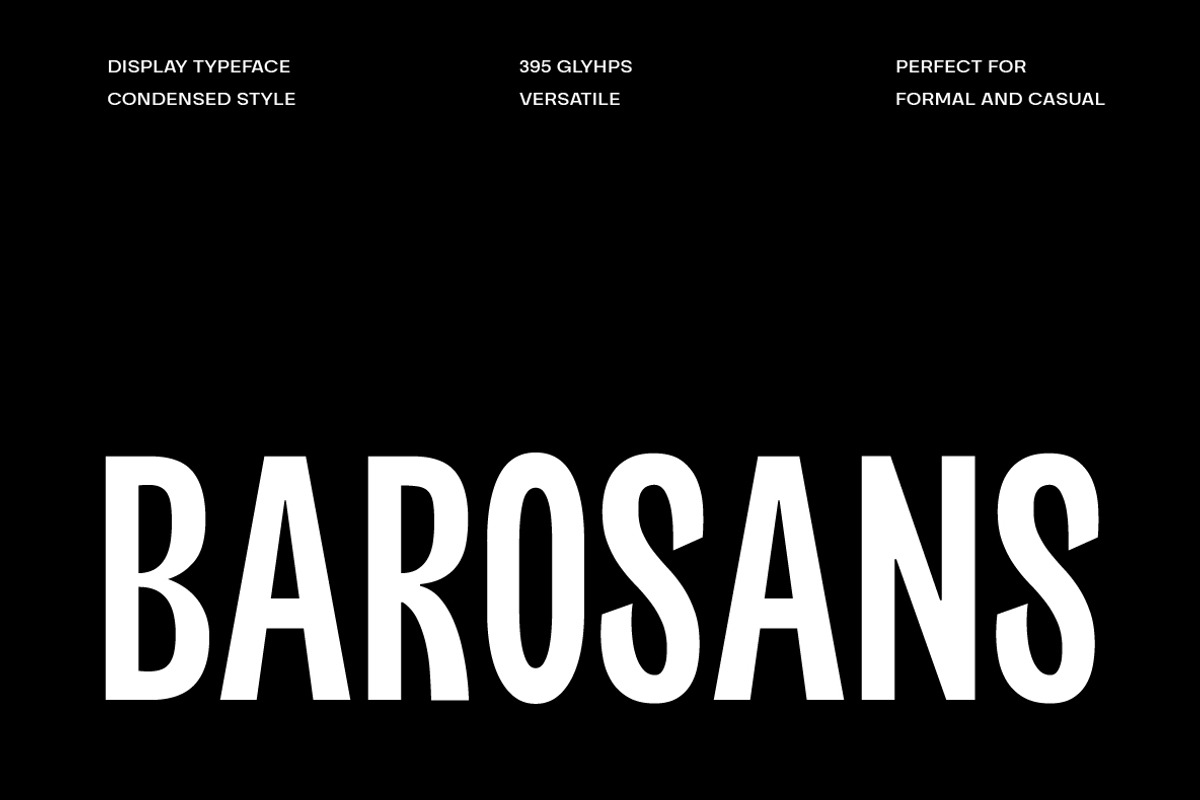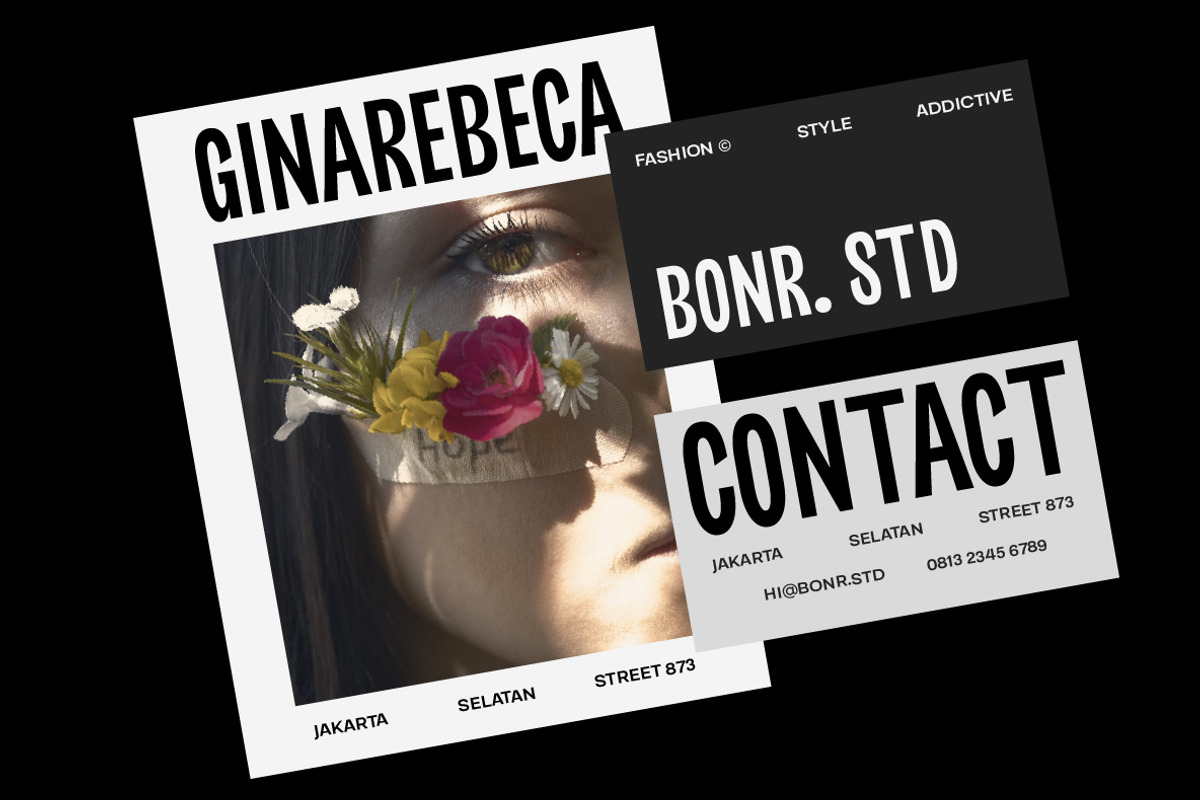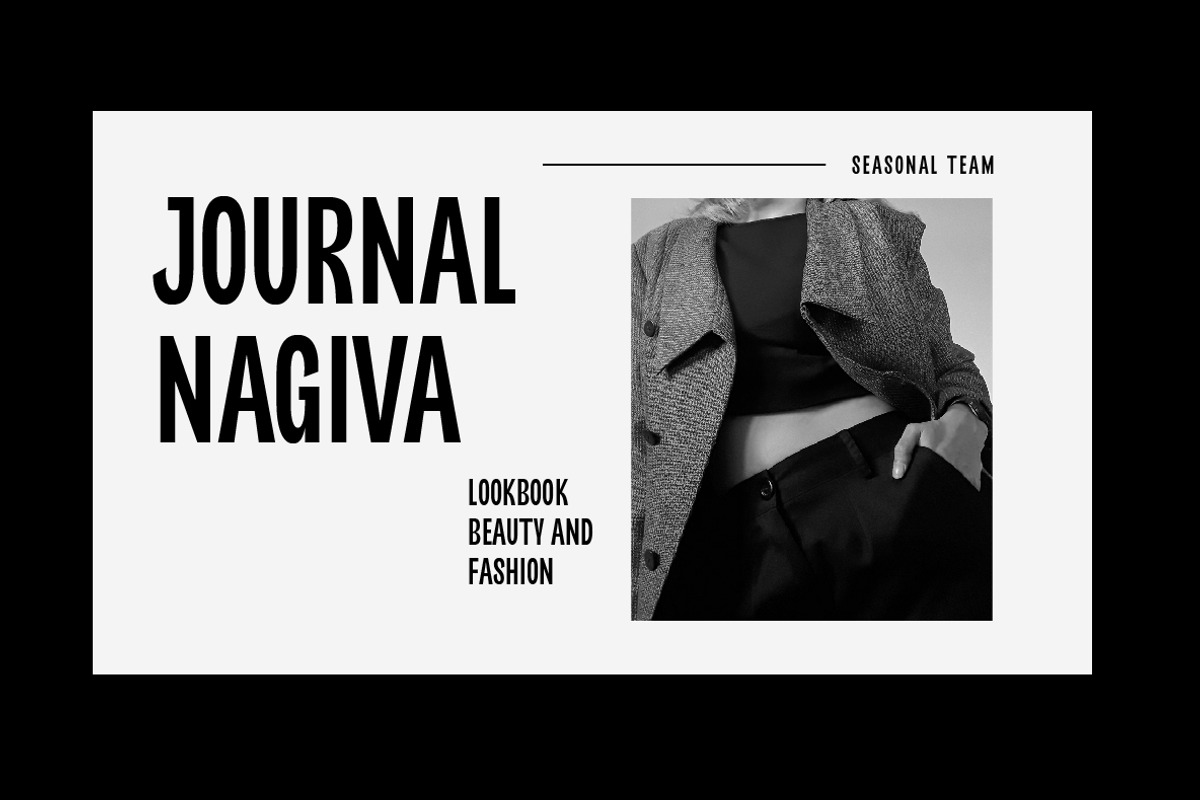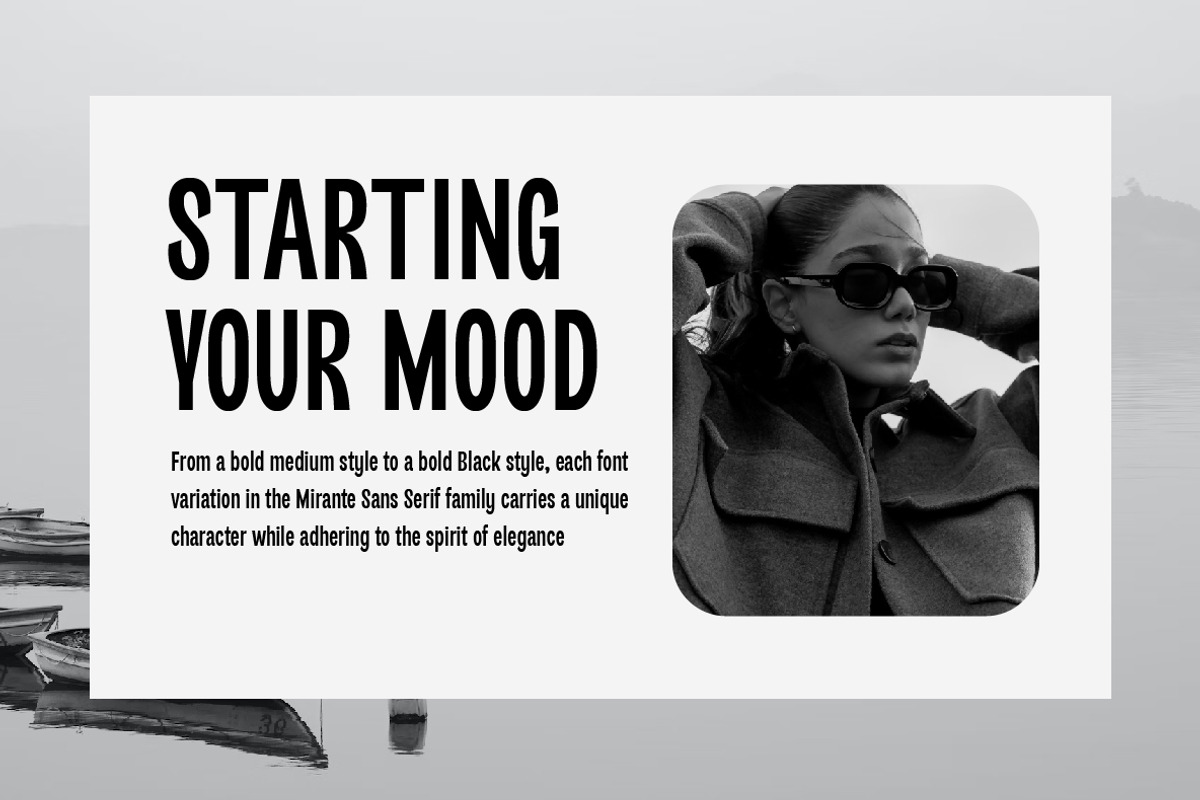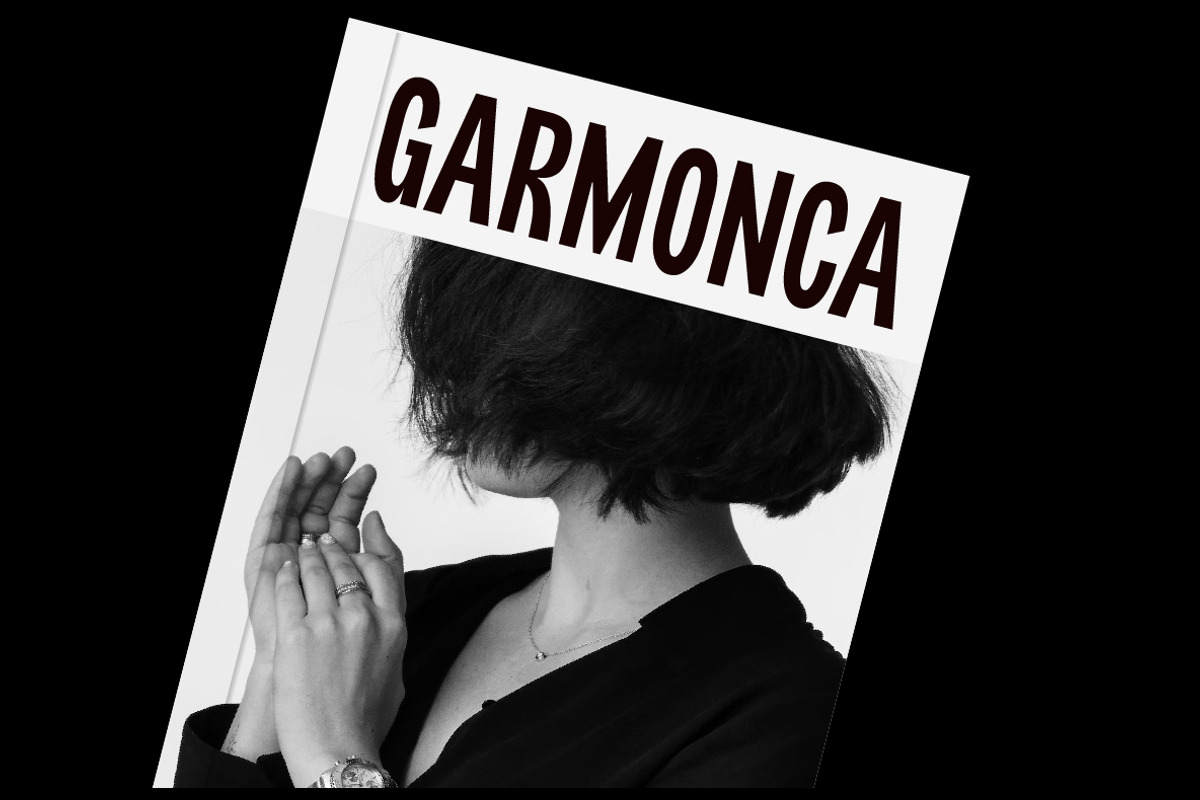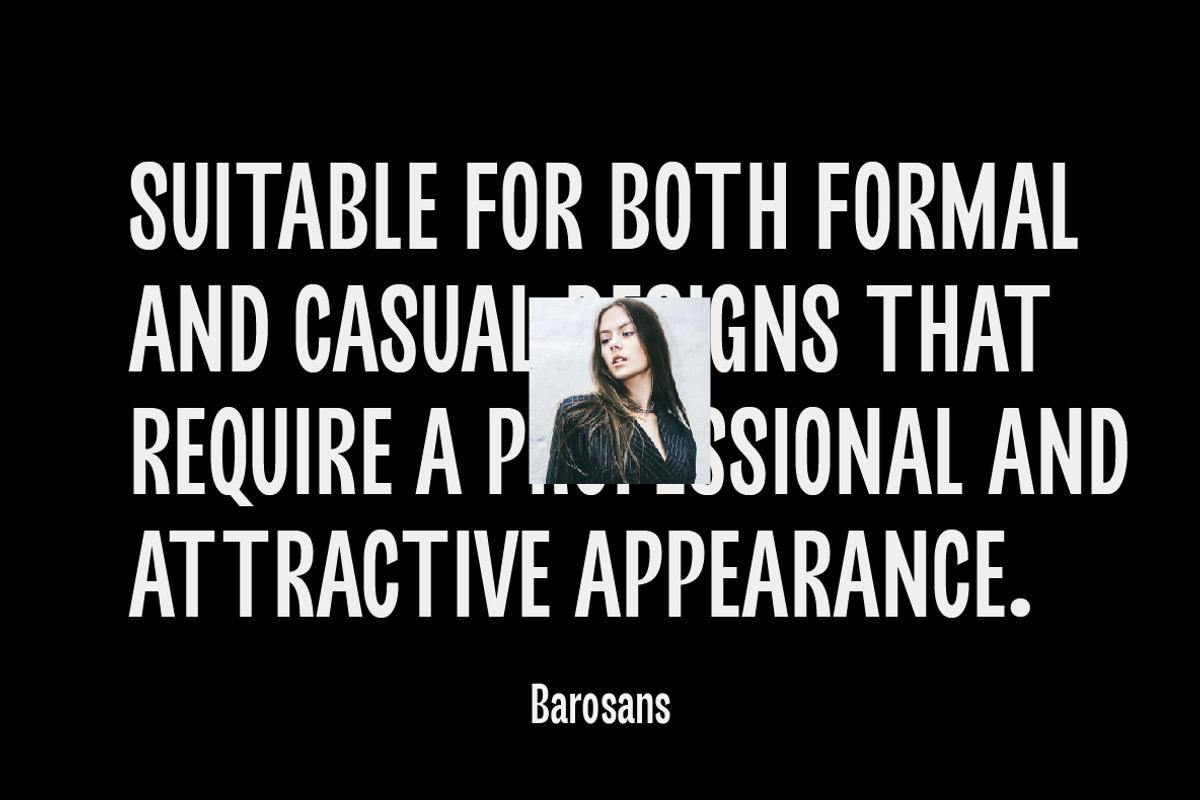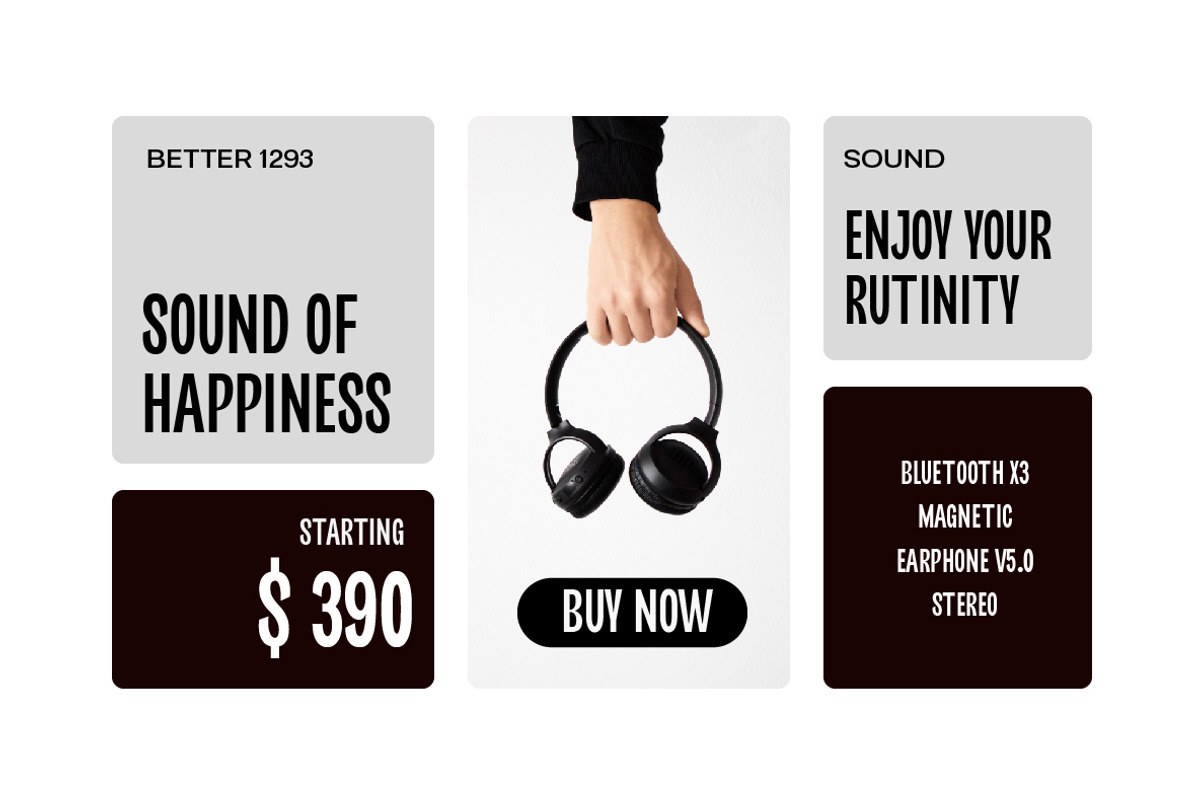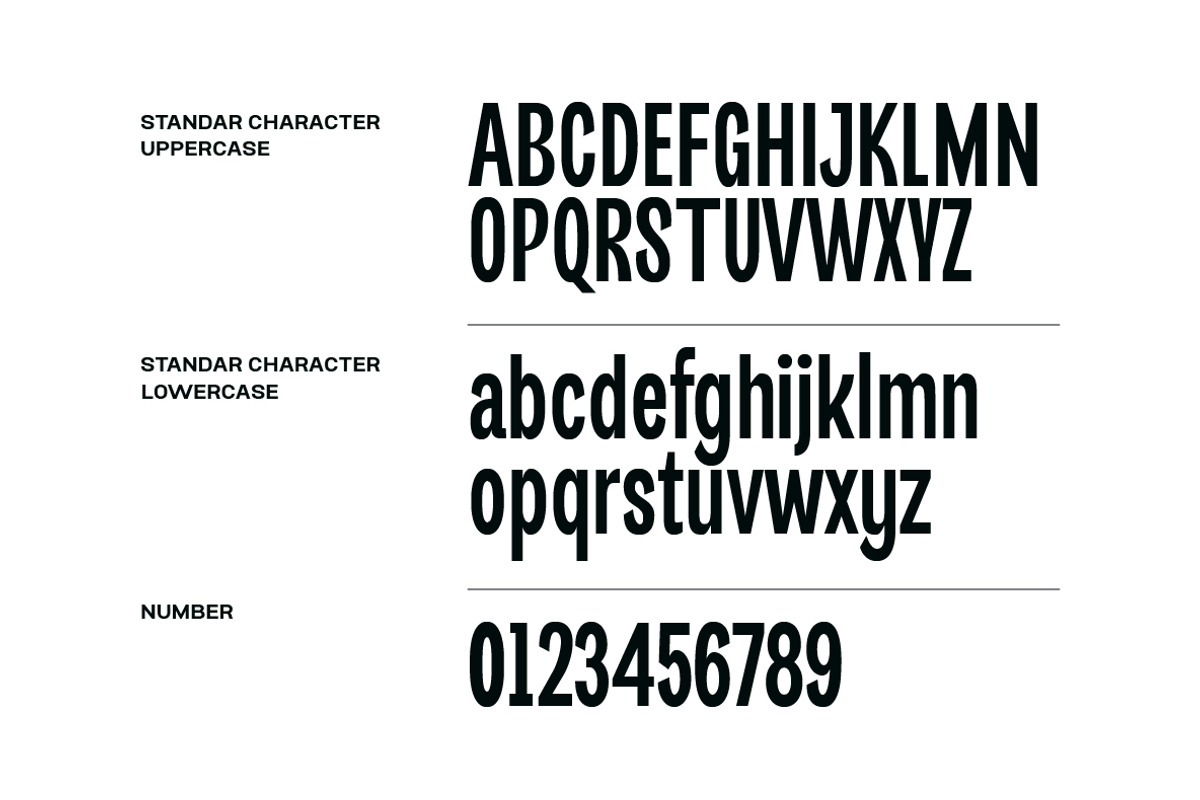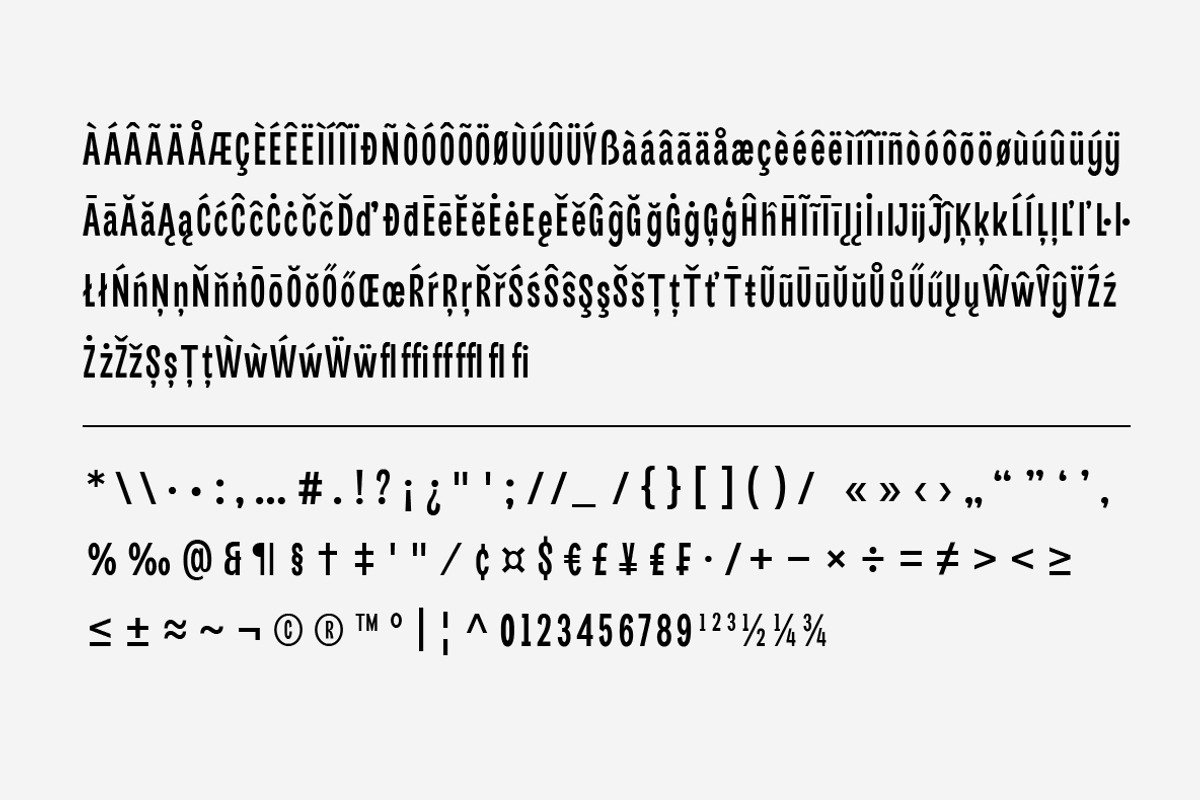
Barosans Display Font
Barosans Condensed Display Fonts is a modern display typeface that has a simple and elegant design. This font has a slender, grave typeface that evokes a modern and professional impression.
Barosans Condensed Display Fonts are very suitable for use in display designs such as posters, headlines, or other print layouts.
With the luxurious, professional and elegant impression presented by Barosans Condensed Font, this font is an excellent font choice for adding a charming aesthetic element to any design.